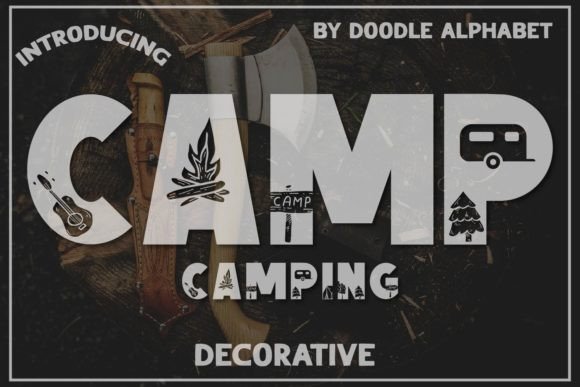
An Honest Review of Camping Font
What I Love About Camping Font
- ✨ **Playful and Youthful**: Camping Font is incredibly cute and assertive, making it perfect for designs that require a touch of joy and playfulness.
- ✅ **Highly Versatile**: This font can be used for a wide range of design projects, from party invitations to social media graphics.
- 💕 **Easy to Read**: Despite its decorative nature, Camping Font is surprisingly easy to read, even at smaller font sizes.
While Camping Font is an excellent choice for many design projects, there are a few quirks to be aware of:
- 🤔 **Limited Serif Options**: Camping Font is a sans-serif font, which might not be ideal for designs that require a more traditional or formal look.
- ⚠️ **Not Suitable for Body Text**: Due to its decorative nature, Camping Font is best used for headings or titles rather than body text.
The Story Behind Camping Font
Camping Font was designed by a team of creatives who wanted to create a font that captured the joy and playfulness of outdoor adventures. Inspired by the beauty of nature and the excitement of camping trips, Camping Font is the perfect choice for designs that require a touch of youth and joy.
| Font Name | Camping Font |
| Author | Doodle Alphabet |
Q: What is Camping Font?
A: Camping Font is a decorative font designed to capture the playful and youthful vibe of outdoor adventures.
Q: What are some common uses for Camping Font?
A: Camping Font is perfect for party invitations, social media graphics, and any design project that requires a touch of playfulness and joy.